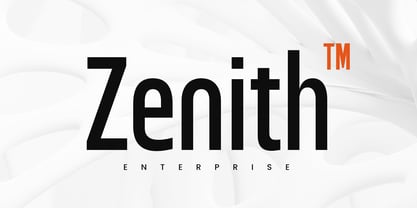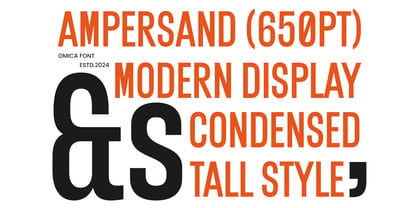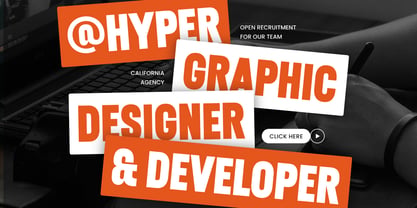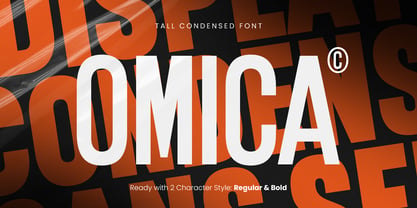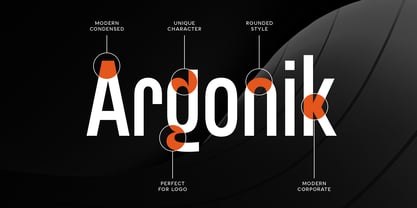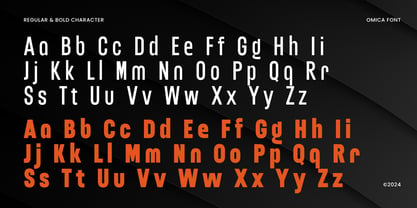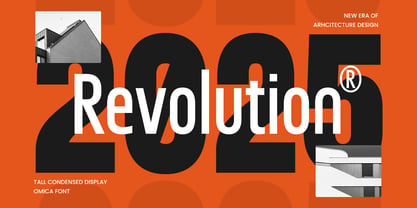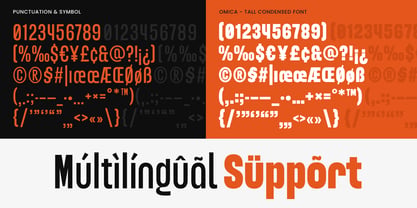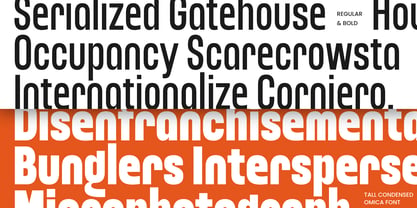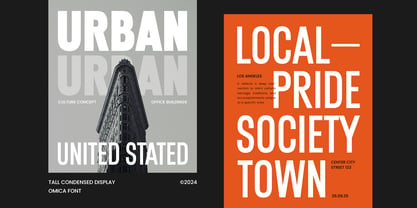
Omica
The Omica Font Family was designed by Zamroni Hamzah and published by Sensatype Studio. Omica contains 2 styles and family package options. More about this family
Omica is a tall, condensed font designed to make a bold statement in any project. Its sleek, elongated forms provide a modern and stylish touch that’s perfect for branding, editorial layouts, and impactful headlines. The unique vertical proportions of Omica create a distinctive look that captures attention while maintaining readability.
Crafted with precision, Omica brings a professional edge to your work, allowing designers to maximize space without compromising on style. The tall, narrow letterforms are ideal for projects where visual hierarchy and a contemporary feel are essential. Whether it’s magazine titles, product packaging, or branding materials, Omica ensures a refined yet striking presence.
Omica's versatility makes it suitable for a range of applications, from fashion and lifestyle to corporate and creative industries. Add this standout font to your toolkit to bring a modern, sophisticated touch to your designs.
Omica Tall Condensed Font Features:
• Stylish and Professional Characters
• Ready With Regular & Bold Version
• Unique Punctuation, Number, and Symbol
• Uppercase and Lowercase
• Opentype Features
Multilingual Characters available for:
Afrikaans, Albanian, Asu, Basque, Bemba, Bena, Breton, Chiga, Cornish, Dutch, English, Estonian, Filipino, Finnish, Friulian, Galician, German, Gusii, Indonesian, Irish, Italian, Kabuverdianu, Kalenjin, Kinyarwanda, Luo, Luxembourgish, Luyia, Machame, Makhuwa-Meetto, Makonde, Malagasy, Manx, Morisyen, North Ndebele, Nyankole, Oromo, Portuguese, Quechua, Romansh, Rombo, Rundi, Rwa, Samburu, Sango, Sangu, Scottish Gaelic, Sena, Shambala, Shona, Soga, Somali, Spanish, Swahili, Swedish, Swiss.